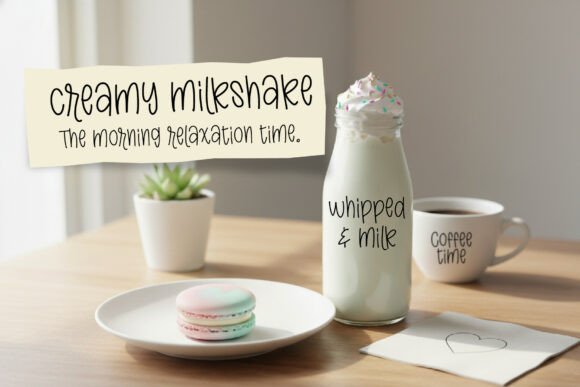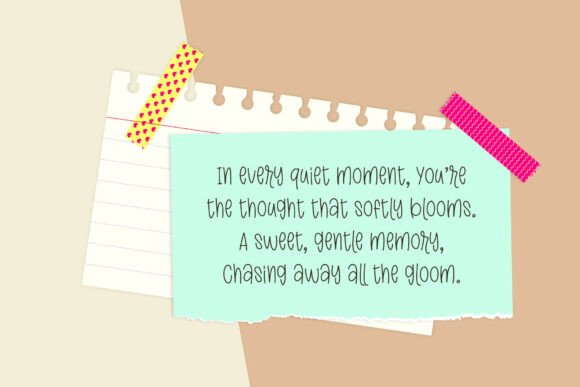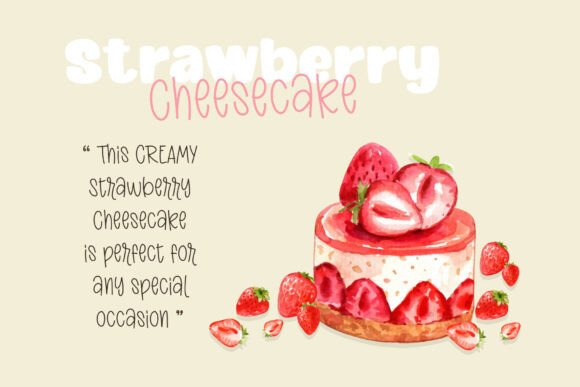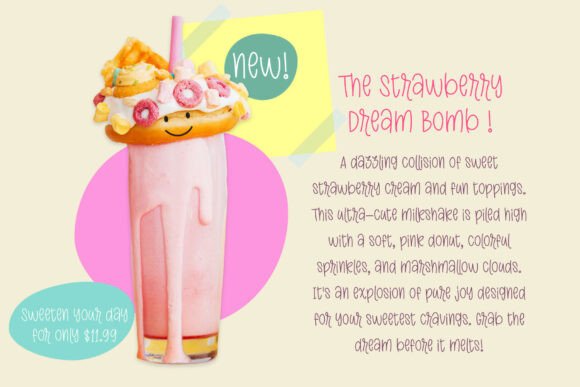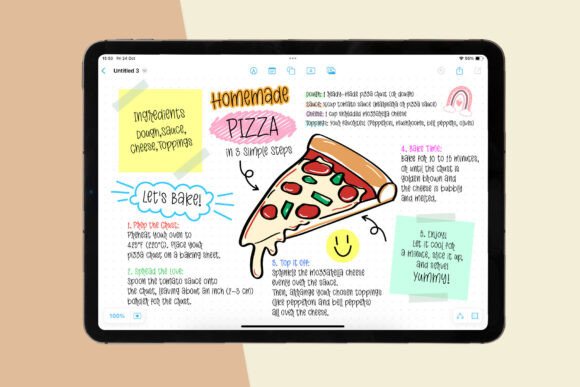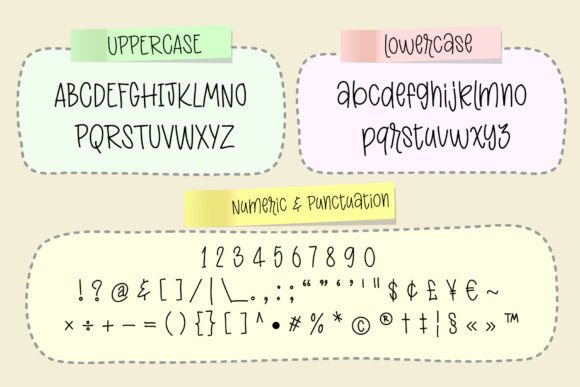
Creamy Milkshake Font: A Deliciously Whimsical Addition to Your Designs
Are you on the hunt for a font that exudes warmth, comfort, and a touch of homemade magic? Look no further than Creamy Milkshake, a captivating handwritten font that brings a sense of intimacy and playfulness to your designs. In this article, we’ll dive into the enchanting world of Creamy Milkshake, exploring its unique features, versatility, and the endless creative possibilities it offers for designers, crafters, and writers alike.
The Charm of Creamy Milkshake
Creamy Milkshake is more than just a font – it’s an experience. With its soft, artisanal allure, this enchanting script effortlessly crafts heartwarming designs that feel like a warm hug. Each letter is carefully crafted to radiate a sense of comfort and familiarity, making it perfect for projects that require a personal touch. Whether you’re designing a menu for your cozy café, creating stickers, or crafting greeting cards, Creamy Milkshake is the perfect companion.
One of the standout features of Creamy Milkshake is its incredible versatility. This font seamlessly adapts to a wide range of mediums, making it an excellent addition to your design arsenal. Use it to:
• Elevate your café menus with a touch of whimsy and warmth
• Add a personal touch to your stickers and labels
• Create sentimental greeting cards that tug at the heartstrings
• Bring a sense of coziness to your digitized planners and journals
• Make your scrapbooking pages truly special
A Perfect Fit for Digital and Physical Projects
Creamy Milkshake is not just limited to digital projects; it’s also perfect for physical applications. Its smooth, flowing lines and soft texture make it an excellent choice for:
• Handwritten notes and letters
• Recipe annotations and food blogs
• DIY projects and crafting tutorials
• Stationery and paper crafts
Bringing a Touch of Sweetness to Your Designs
Creamy Milkshake has a unique ability to infuse your text with an invitingly personal touch. Its soft, rounded edges and gentle curves make it feel like a warm, comforting treat. Whether you’re scribing a heartfelt love note or annotating your favorite dessert recipe, this font adds a sublime sprinkle of sweetness to your creations.
Getting to Know Creamy Milkshake in Goodnotes
For those familiar with Goodnotes, Creamy Milkshake is an excellent addition to your digital stationery collection. Imagine creating beautiful, handwritten notes and journals that feel like a treasured keepsake. With Creamy Milkshake, you can:
• Create stunning digital planners and journals
• Add a personal touch to your notes and annotations
• Make your digital scrapbooking pages truly special
In conclusion, Creamy Milkshake is a truly enchanting font that brings a sense of warmth, comfort, and playfulness to your designs. Its versatility, soft artisanal allure, and invitingly personal touch make it perfect for a wide range of projects, from digital designs to physical applications. Whether you’re a designer, crafter, or writer, Creamy Milkshake is sure to become a favorite in your collection. So why not give it a try and discover the magic of Creamy Milkshake for yourself?
Key Takeaways
• Creamy Milkshake is a captivating handwritten font that exudes warmth and comfort
• It’s perfect for a wide range of projects, from digital designs to physical applications
• The font features a soft, artisanal allure and an invitingly personal touch
• Creamy Milkshake is highly versatile and adaptable to various mediums
• It’s an excellent addition to your Goodnotes creations, digital stationery, and paper crafts